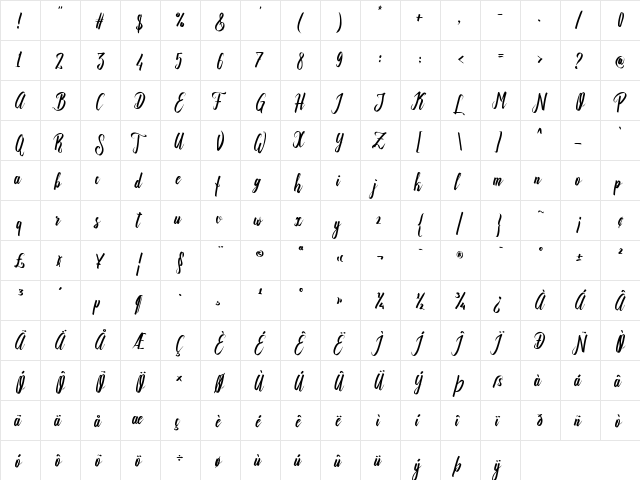
Recognition Script Regular
Design Context for Recognition Script Typeface
Recognition Script flows with the natural rhythm of handwritten lettering, making it ideal for designs that call for warmth and personal expression.
Font Pairing: Combine Recognition Script with a simple geometric sans for maximum contrast — the tension between flowing curves and clean structure is a classic typographic pairing.
Pro Tip: Use Recognition Script for short runs of text — names, titles, or taglines. Extended body copy in script faces tires the eye quickly.